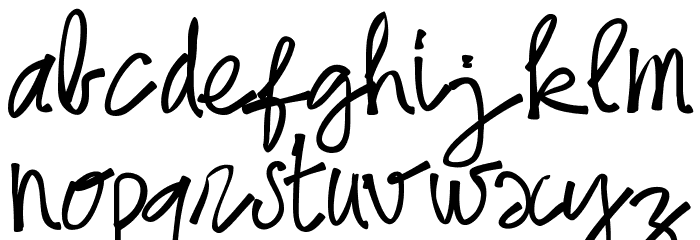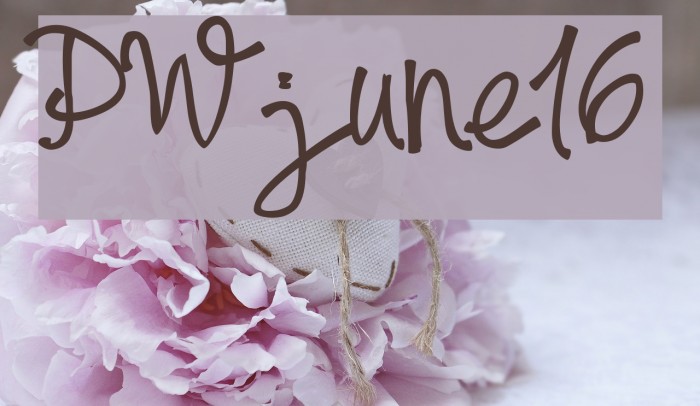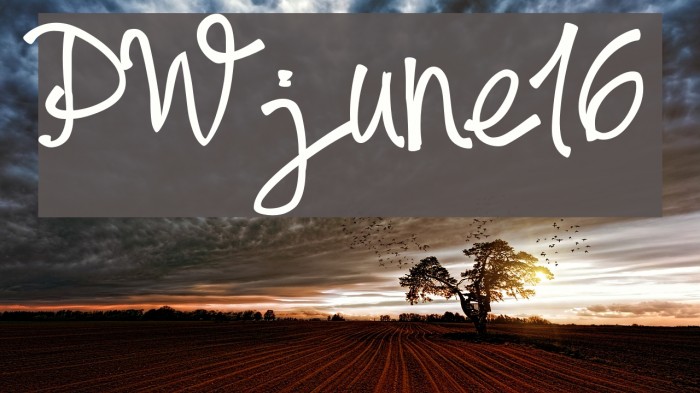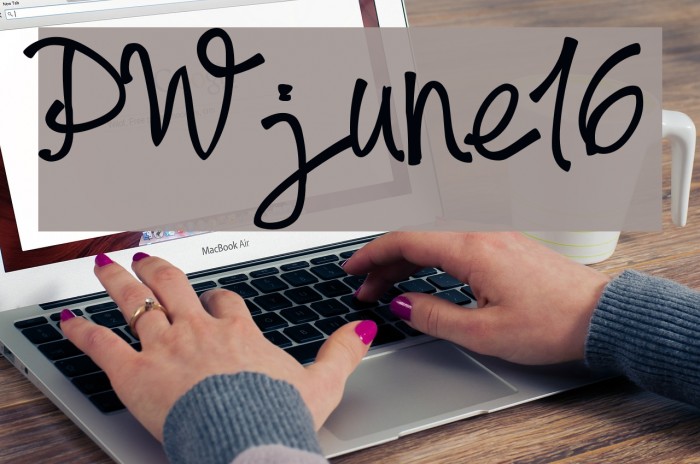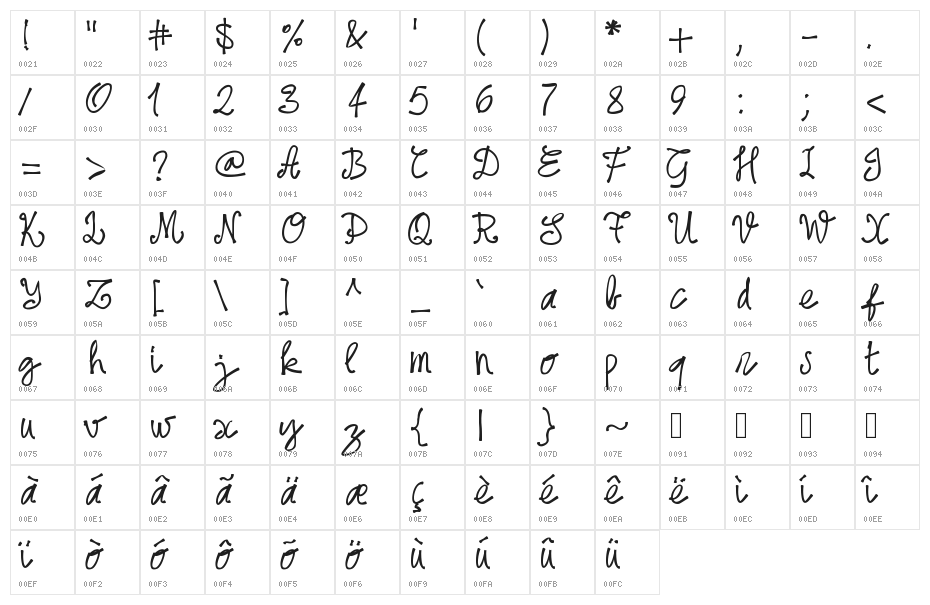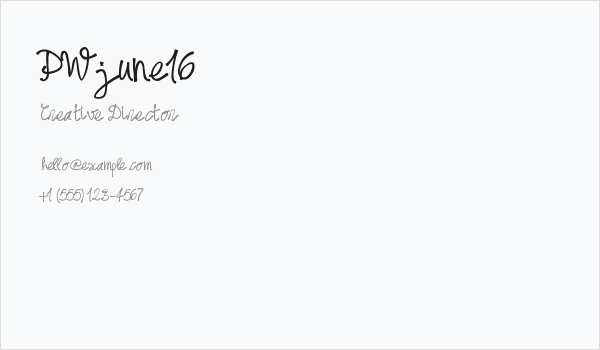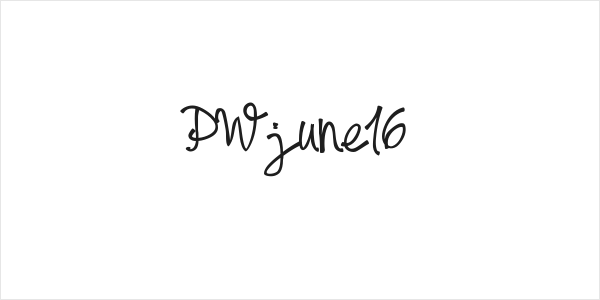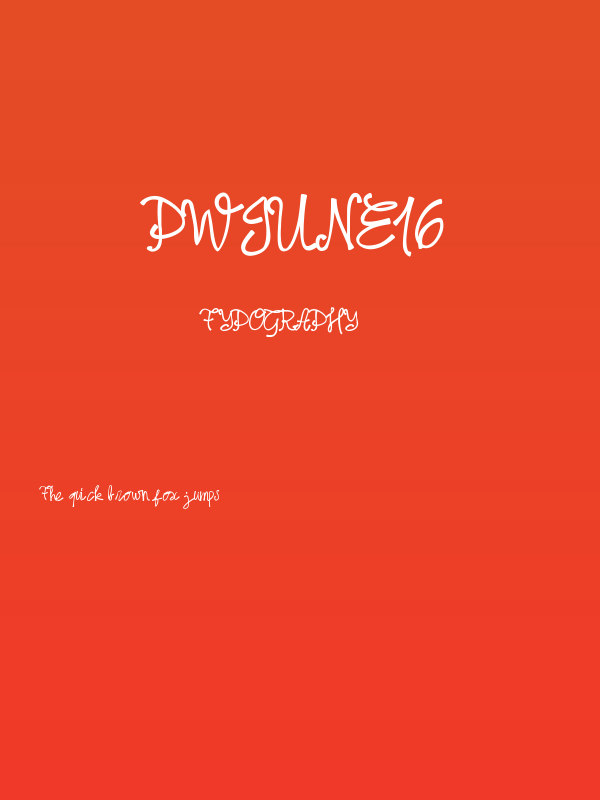
PWjune16 Font
This font features a lively and dynamic handwritten style, characterized by its fluid and cursive strokes. The uppercase letters exhibit a playful and whimsical flair, with varying heights and loops that add a sense of movement. The lowercase letters maintain a consistent flow, complementing the uppercase with their slightly slanted and connected forms. Numbers and special characters are crafted with the same energetic style, ensuring uniformity across the font. The overall appearance is informal yet stylish, making it suitable for projects that require a personal touch.
A lively, handwritten font with fluid, cursive strokes and a playful style.
- Proposed Projects: Ideal for greeting cards, invitations, personal branding, and creative projects that benefit from a personal, informal touch.